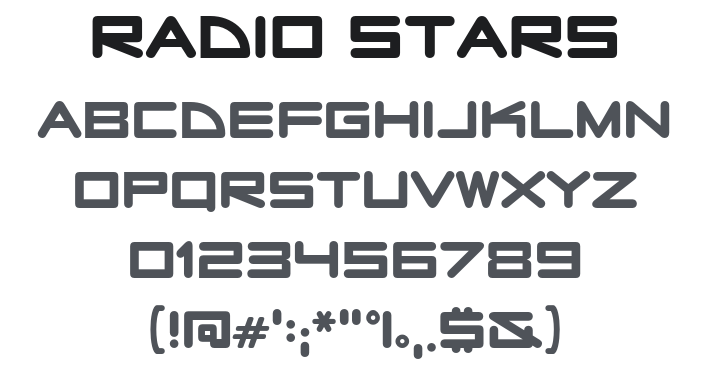
Radio Stars Font
About Radio Stars
Radio Stars is a straightforward, blunt-ended techno display typeface with squarish, robotic letterforms that project clean, functional authority — no decorative frills, just crisp geometric precision that feels like signage on a space station. Its utilitarian directness makes it highly legible at large sizes. Perfect for sci-fi game titles, tech branding, broadcast graphics, industrial signage, and any headline needing no-nonsense robotic clarity.